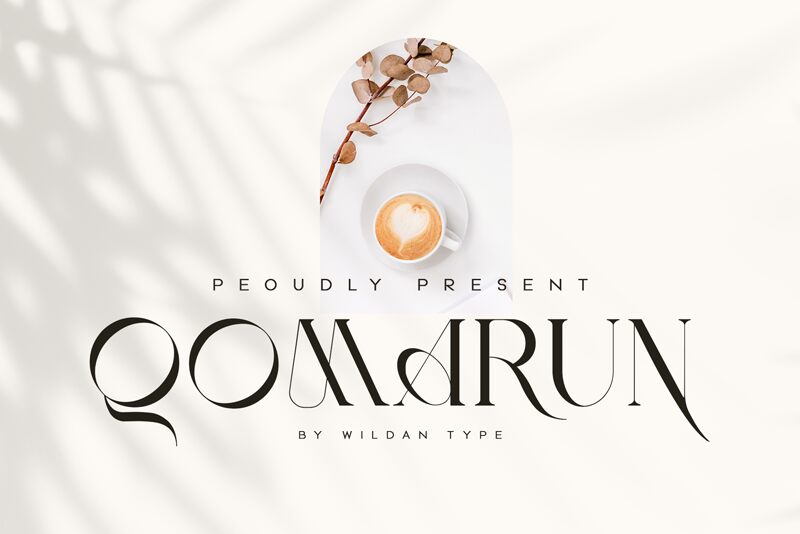
Qomarun
Qomarun, a captivating serif font crafted by Wildan Type, emanates a timeless elegance and sophistication. Its intricate letterforms, with their delicate serifs and graceful curves, evoke a sense of refined artistry, making it an alluring choice for projects seeking a touch of classic charm. The font's balanced proportions and harmonious interplay of thick and thin strokes create a visually striking and aesthetically pleasing typographic experience.
Qomarun's versatility shines through its ability to seamlessly integrate into a wide range of design contexts, from high-end editorial publications and luxury brand identities to elegant wedding invitations and sophisticated packaging. Its refined aesthetic lends itself beautifully to projects that require a timeless, elegant, and refined typographic treatment, captivating audiences with its timeless appeal.